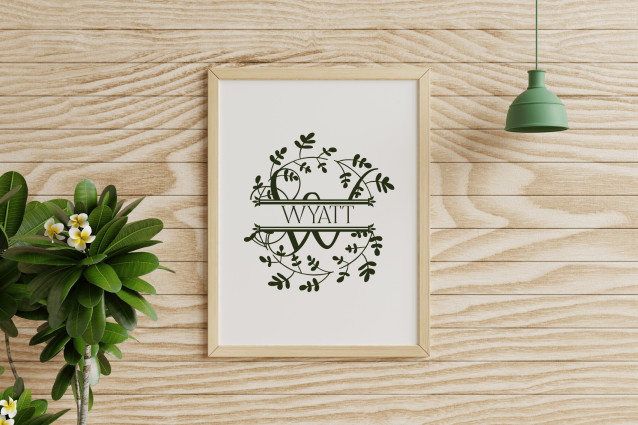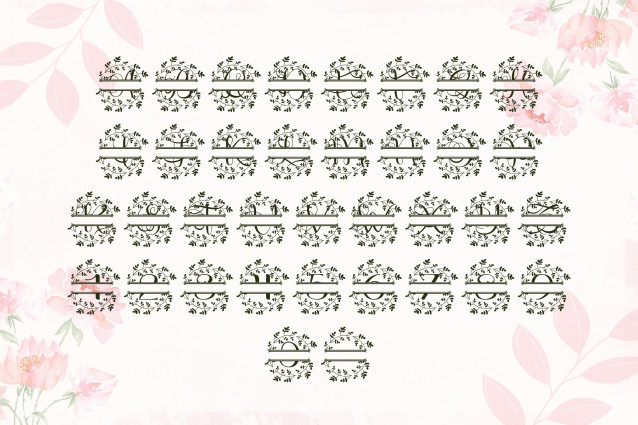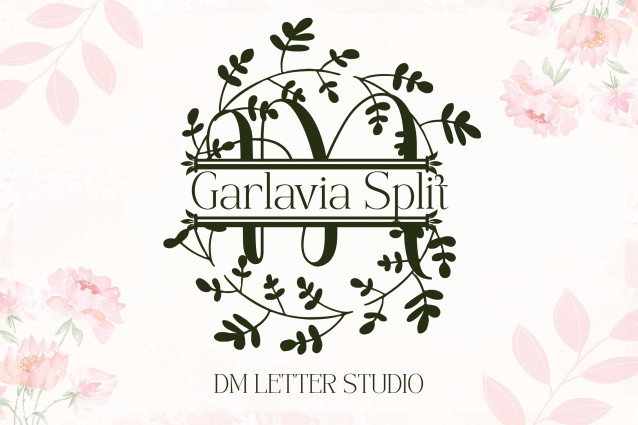
Garlavia Split Font
Garlavia Split Font is a refined serif split monogram font, designed for those who want a personalized and sophisticated aesthetic. Each uppercase letter features a horizontal split, allowing space to insert names, initials, or meaningful words—perfect for wedding signage, gifts, and Cricut crafts. Graceful botanical flourishes enhance its timeless charm.